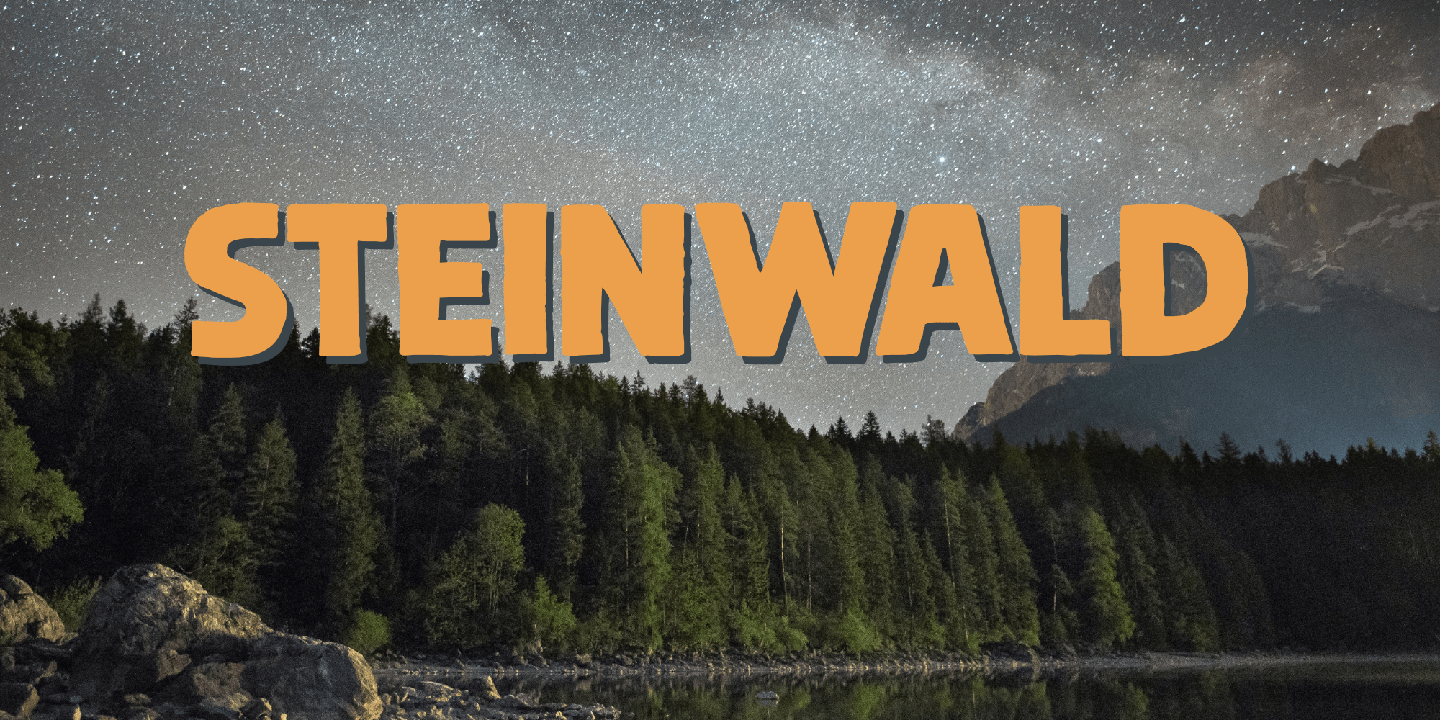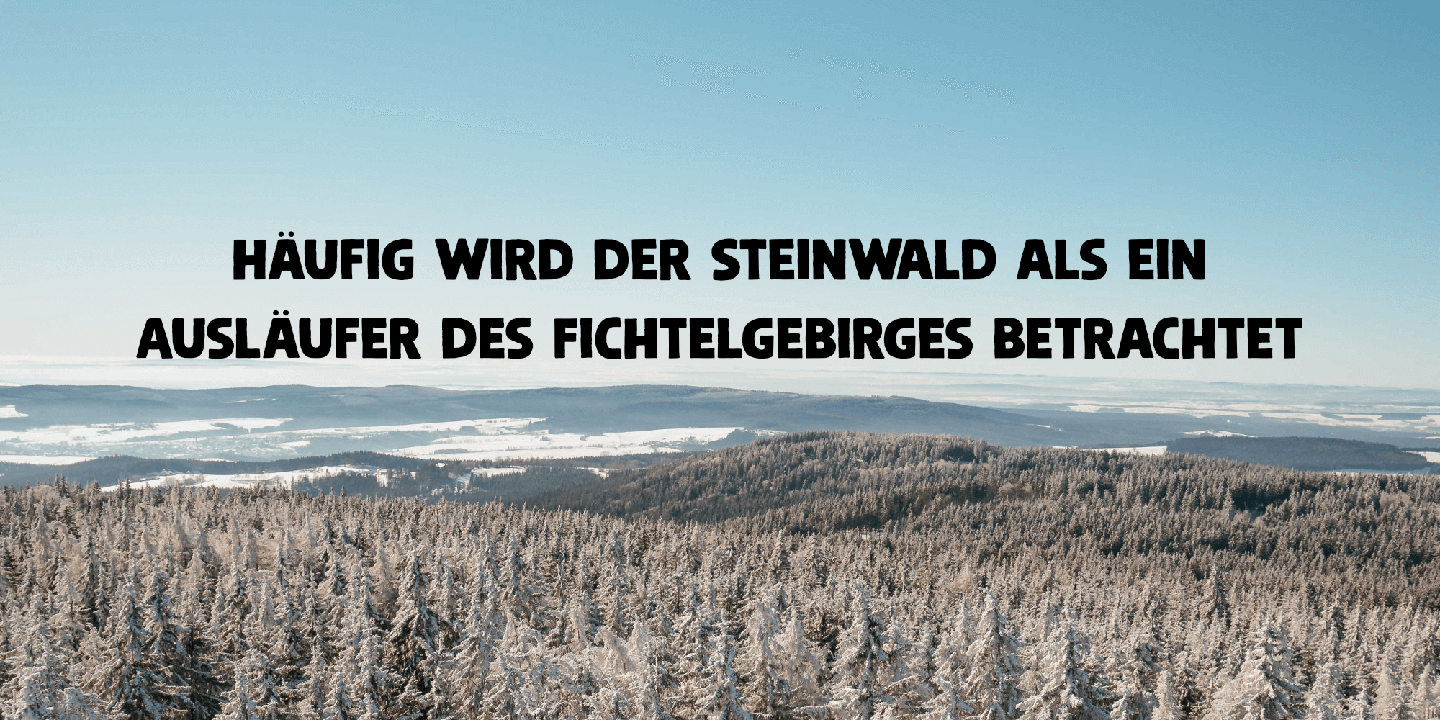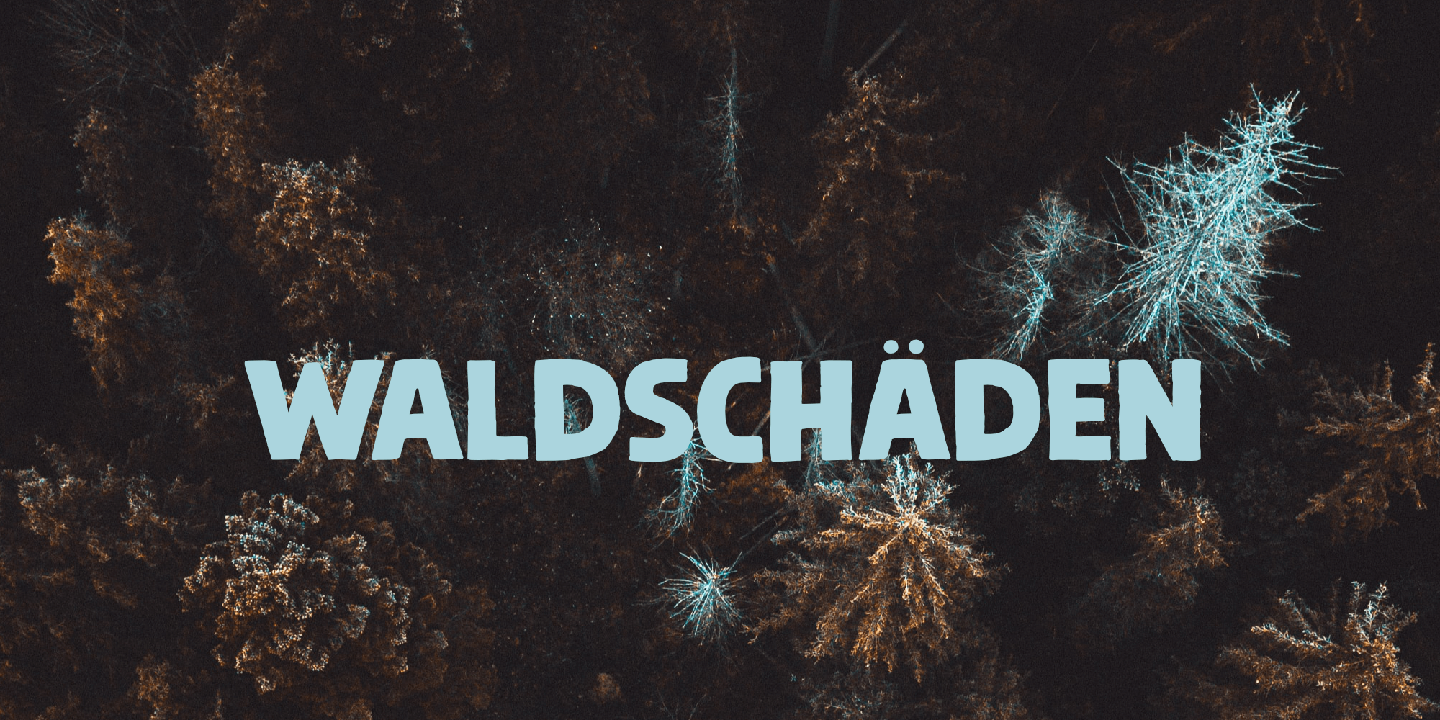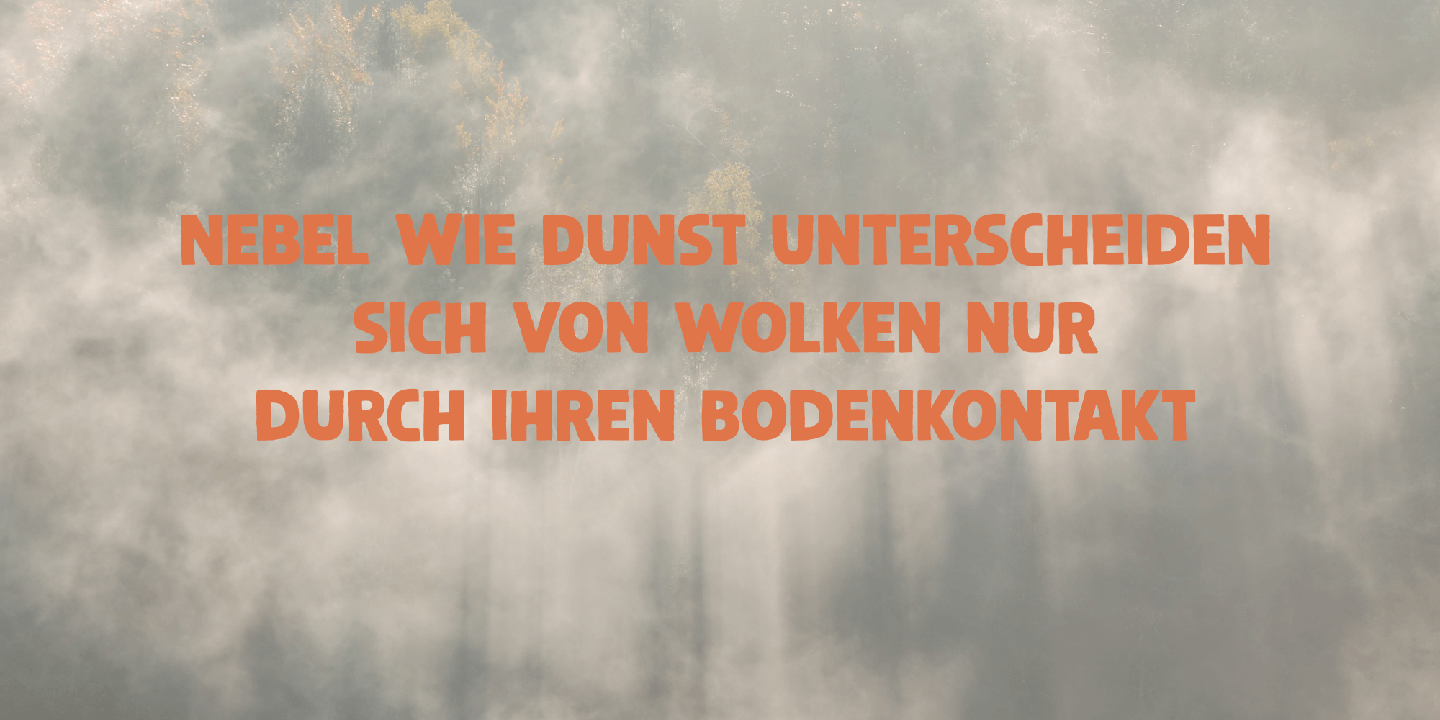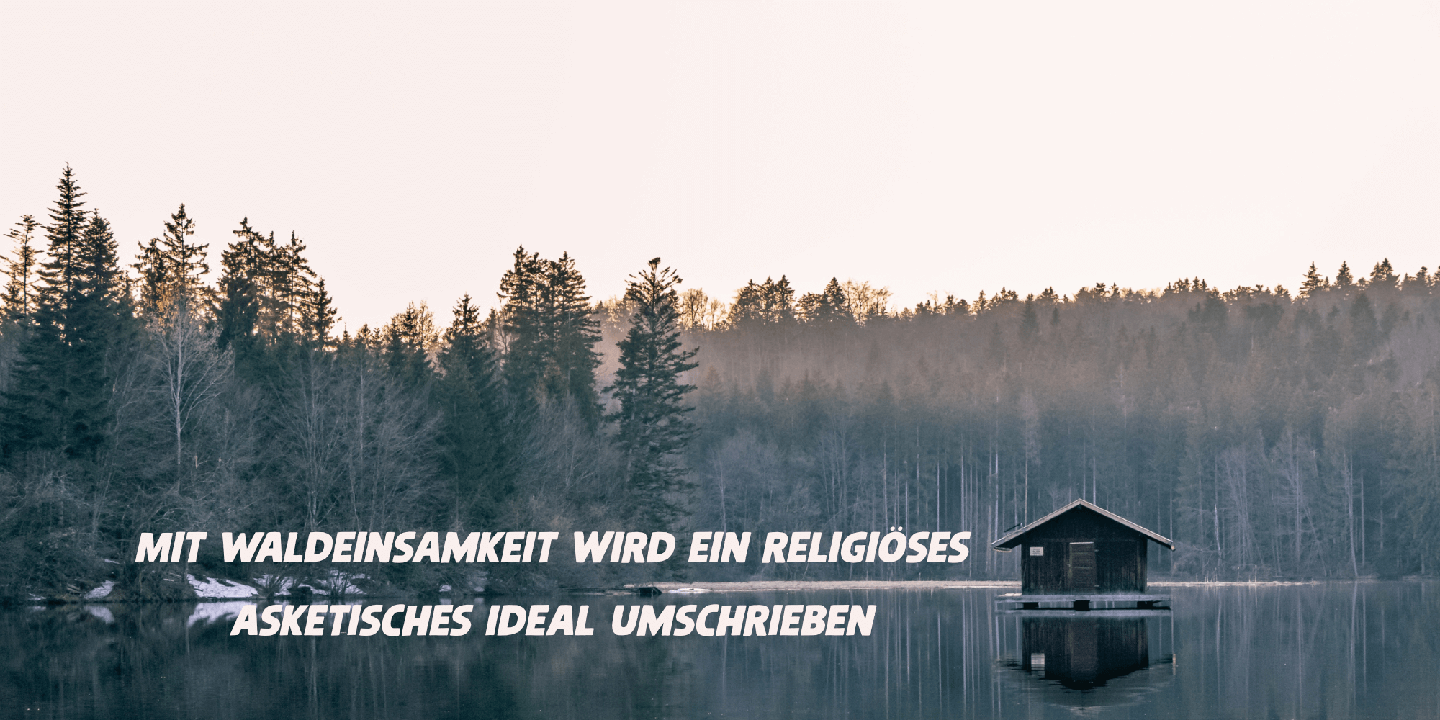
Steinwald
Steinwald font was named after a mountain range slash nature park in southern Germany. I have to admit that I have never been there, but this font was just screaming for a good German name and I settled on Steinewald (which, in German, means Stone Forest).
Steinwald was made by hand and cleaned up by computer. It looks quite neat, but its edges area bit rough, giving it 'ye olde handmade look!' Use it for your posters, your product packaging and your supermarket signs. Comes with extensive language support.